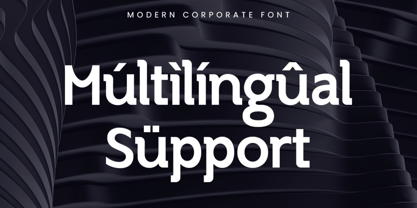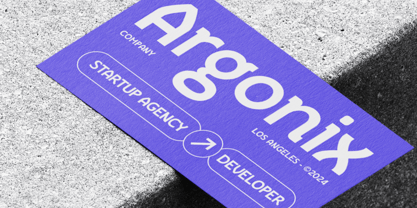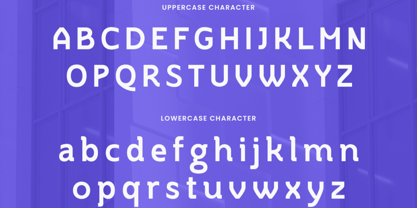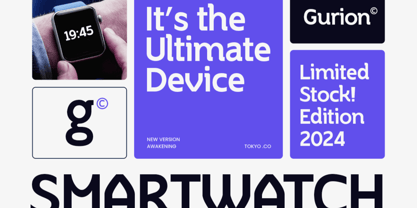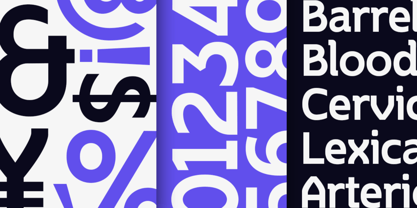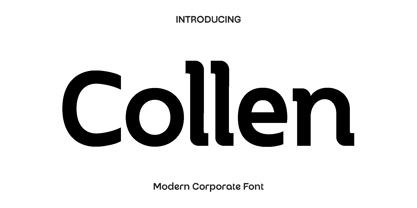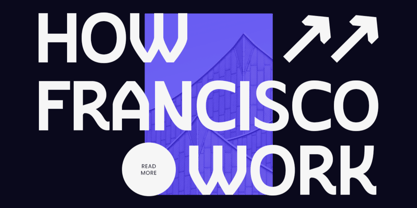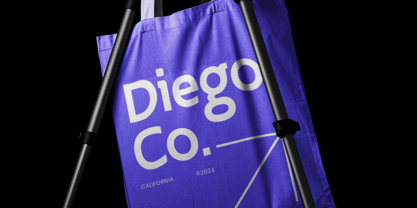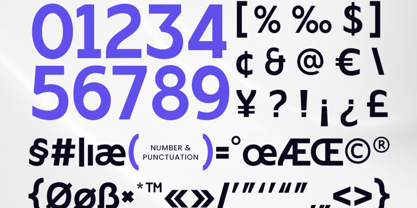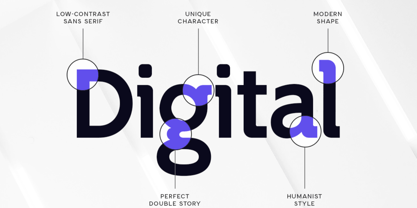
Collen
The Collen Font Family was designed by Olivia Love and published by Only Fonts. Collen contains 1 styles. More about this family
Collen – Modern Corporate Font Collen is a modern corporate font designed to embody professionalism, clarity, and contemporary business aesthetics. With its clean lines and balanced proportions, Collen conveys a refined visual tone that communicates trust, authority, and confidence. The sleek structure is inspired by modern corporate branding, where simplicity and precision are essential for creating strong and memorable identities. This font excels in professional environments where clarity and impact are crucial. It is an excellent choice for business presentations, corporate reports, branding systems, website headers, marketing materials, and high-impact logos. Collen ensures that your message is presented with a polished and organized appearance, making it ideal for both digital platforms and print media. Collen feels modern, reliable, and versatile. Its meticulously crafted letterforms provide excellent readability while maintaining a stylish and sophisticated edge. Whether used for bold headlines or detailed text, it adapts seamlessly to various design needs, helping brands maintain a consistent and professional voice. Perfect for agencies, startups, and established businesses, Collen elevates your projects with a strong corporate presence. It is a valuable asset for designers aiming to create clean, effective, and visually appealing work that leaves a lasting impression. Collen Modern Corporate Font Features: • Professional and sleek characters • Unique punctuation, numbers, and symbols • Uppercase and lowercase letters • OpenType features • Multilingual support for over 50 languages